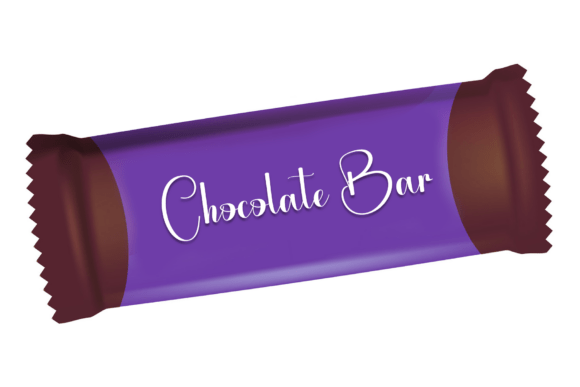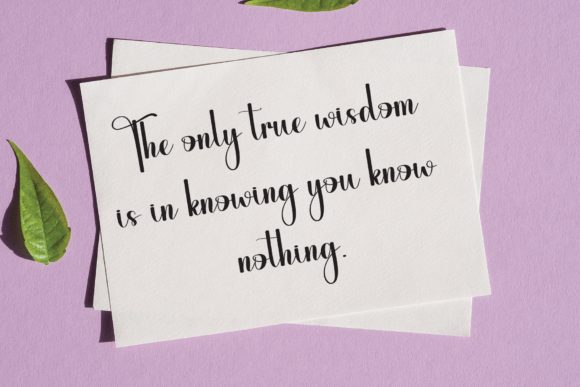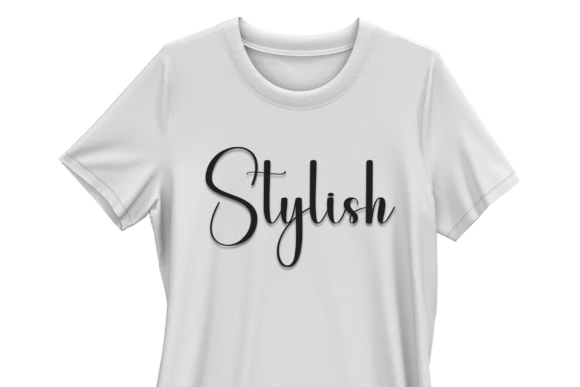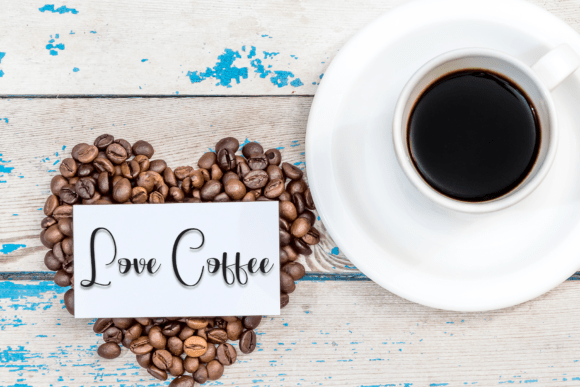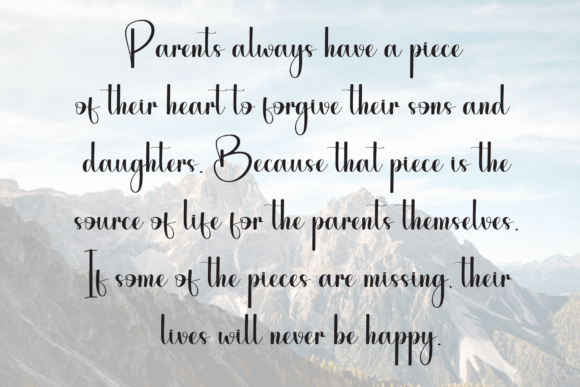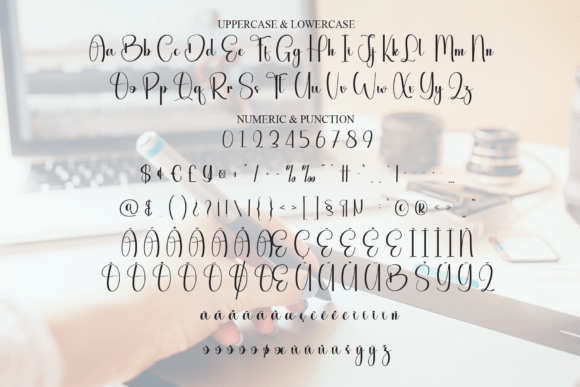
Introducing Autography Font: Elevate Your Designs with Elegance and Playfulness
Are you a designer or crafter looking for a font that can add a touch of sophistication and whimsy to your projects? Look no further than Autography, a stylish handwritten script font that captures the essence of elegance and playfulness in every stroke. With its flowing curves and natural rhythm, Autography is the perfect choice for anyone seeking to add a personal, charming touch to their designs.
The Characteristics of Autography Font
Autography is a beautifully crafted font that boasts a range of characteristics that make it stand out from the crowd. Its flowing curves and natural rhythm give it a sense of movement and fluidity, making it perfect for use in invitations, branding, and social media. The font’s elegant design brings a sense of warmth and sophistication to any project, making it ideal for designers and crafters who want to create a lasting impression.
Uses of Autography Font
Autography is a versatile font that can be used in a variety of applications. Here are just a few examples:
- Invitations: Whether you’re planning a wedding, birthday party, or baby shower, Autography is the perfect choice for creating beautiful, eye-catching invitations that set the tone for your event.
- Branding: Autography’s elegant design makes it an excellent choice for use in branding, including logos, packaging, and marketing materials.
- Social Media: Add a touch of personality to your social media posts with Autography. Its playful, cursive strokes are sure to make your content stand out in a crowded feed.
Benefits of Using Autography Font
So why choose Autography over other fonts? Here are just a few benefits of using this beautiful script font:
- Elegance: Autography’s elegant design adds a touch of sophistication to any project, making it perfect for designers and crafters who want to create a lasting impression.
- Playfulness: Despite its elegant design, Autography also has a playful side, making it perfect for use in projects that require a touch of whimsy.
- Versatility: Autography is a versatile font that can be used in a variety of applications, from invitations and branding to social media and more.
Tips for Using Autography Font
Here are a few tips for getting the most out of Autography:
- Use it sparingly: While Autography is a beautiful font, it can be overwhelming if used too much. Use it sparingly to add a touch of elegance and playfulness to your designs.
- Experiment with colors: Autography looks great in a variety of colors, so don’t be afraid to experiment and find the perfect hue for your project.
- Pair it with other fonts: Autography pairs well with a range of other fonts, so don’t be afraid to get creative and find the perfect combination for your project.
In conclusion, Autography is a stylish handwritten script font that captures the essence of elegance and playfulness in every stroke. With its flowing curves and natural rhythm, it’s the perfect choice for designers and crafters who want to add a personal, charming touch to their projects. Whether you’re creating invitations, branding, or social media content, Autography is sure to bring warmth, sophistication, and creativity to your designs.